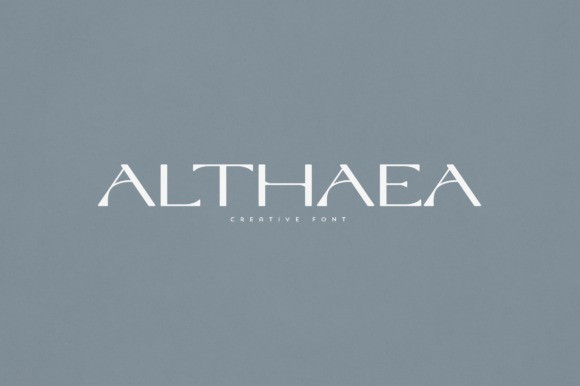
Althaea Font
Althaea Font is an elegant and versatile font that will make your typography truly unique! It will enchant every logo, branding, headline, or plain text!